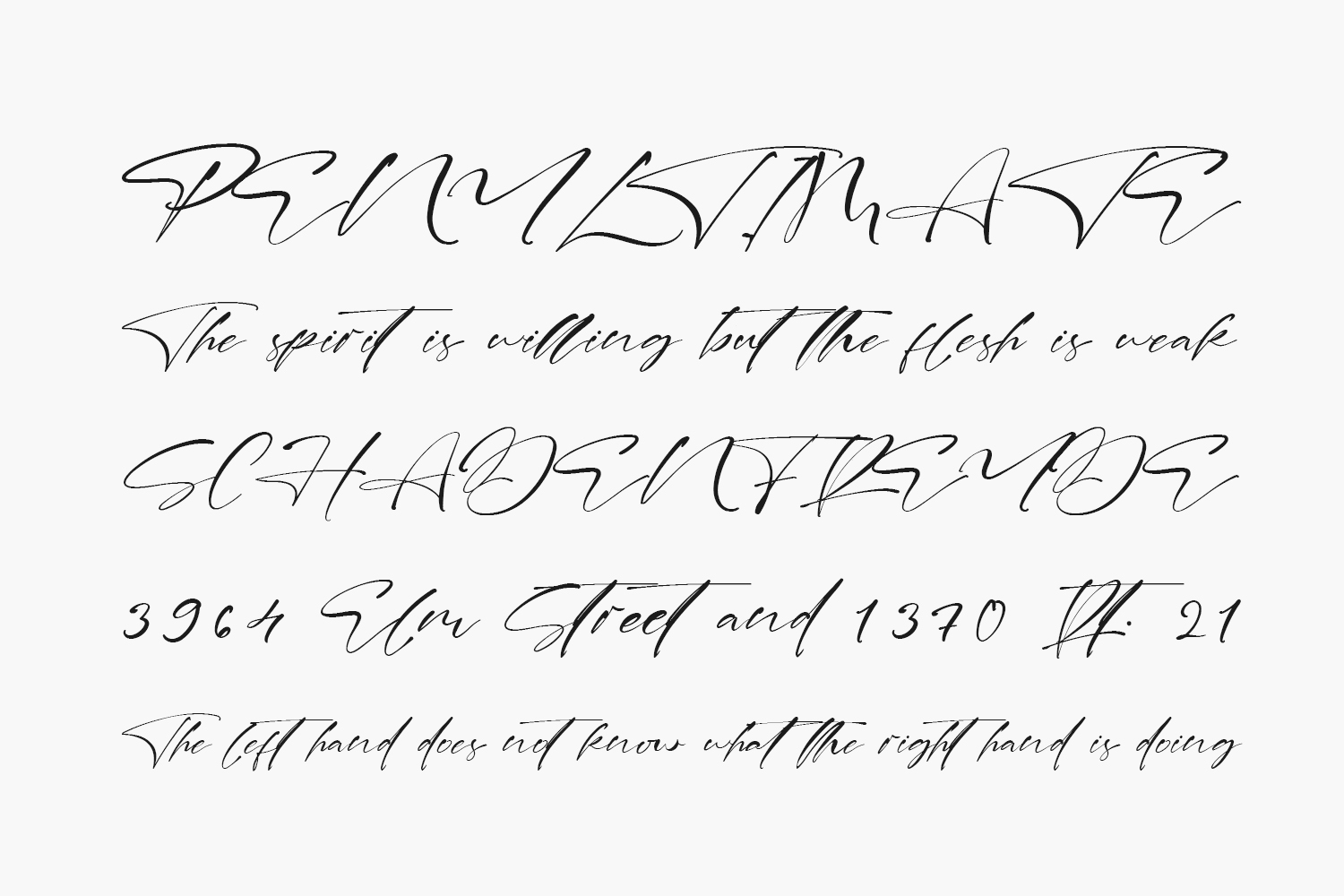
Immerse yourself in the enchanting world of Laneky Haizen Free Font, a graceful handwritten font that exudes elegance and charm. With its beautifully balanced characters and flowing strokes, Laneky Haizen effortlessly complements a wide range of design styles, making it a versatile choice for various creative projects.
Experience the allure of Laneky Haizen as it adds a touch of sophistication to your designs. Its delicate nature and graceful curves make it perfect for branding, invitations, stationery, logo designs, social media graphics, advertising materials, and so much more. With Laneky Haizen, your projects will radiate a sense of timeless beauty and refinement. Laneky Haizen Free Font is free for personal use only. Please purchase the full version for commercial use.